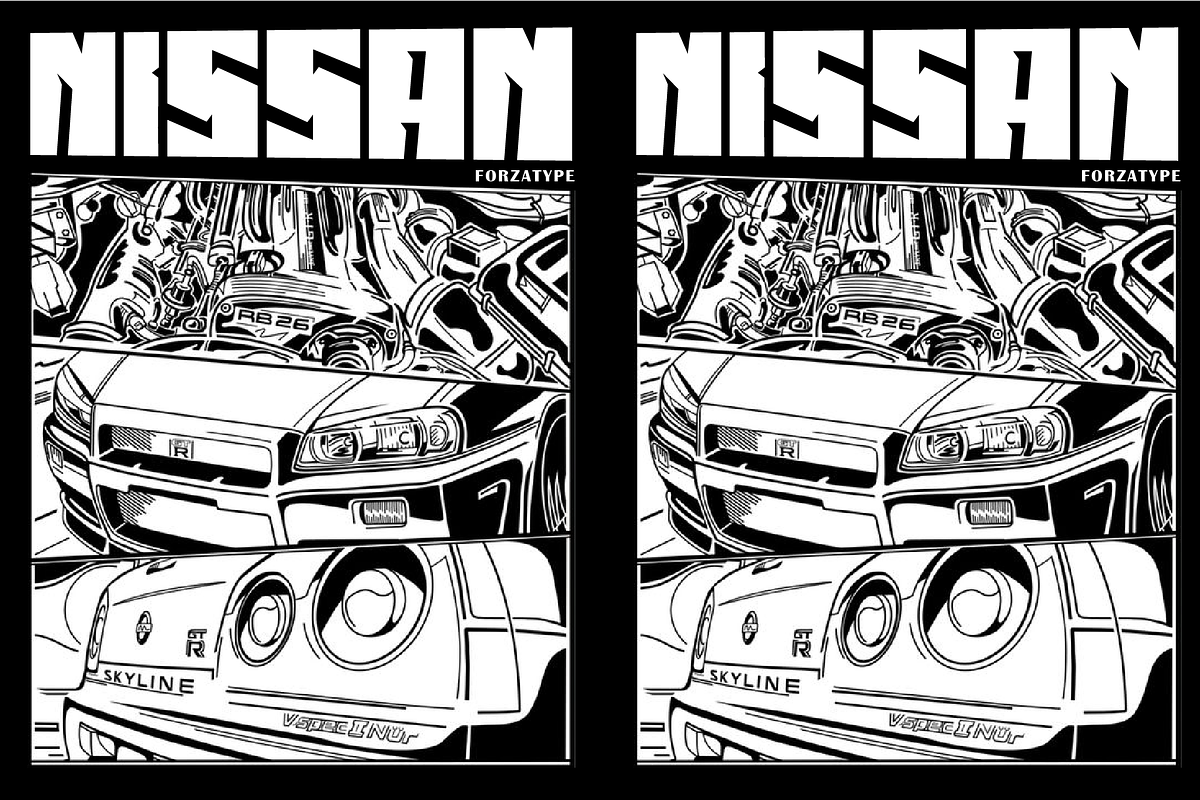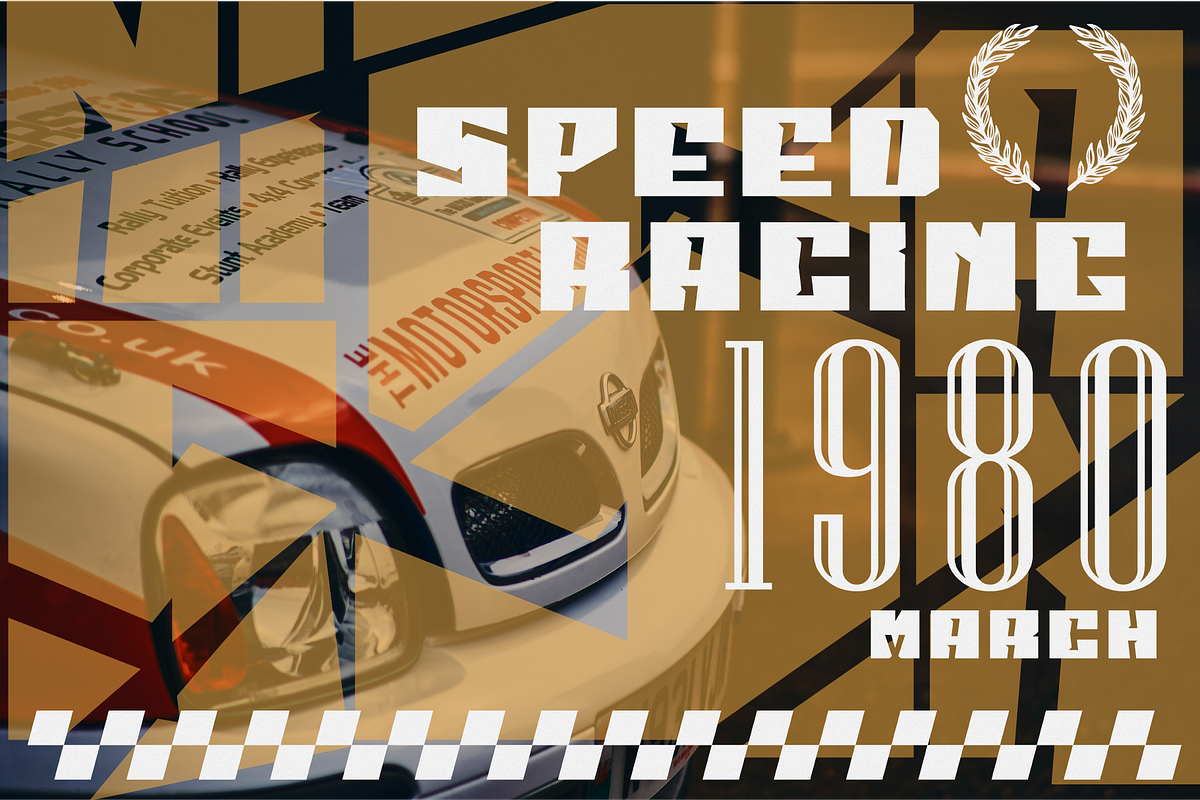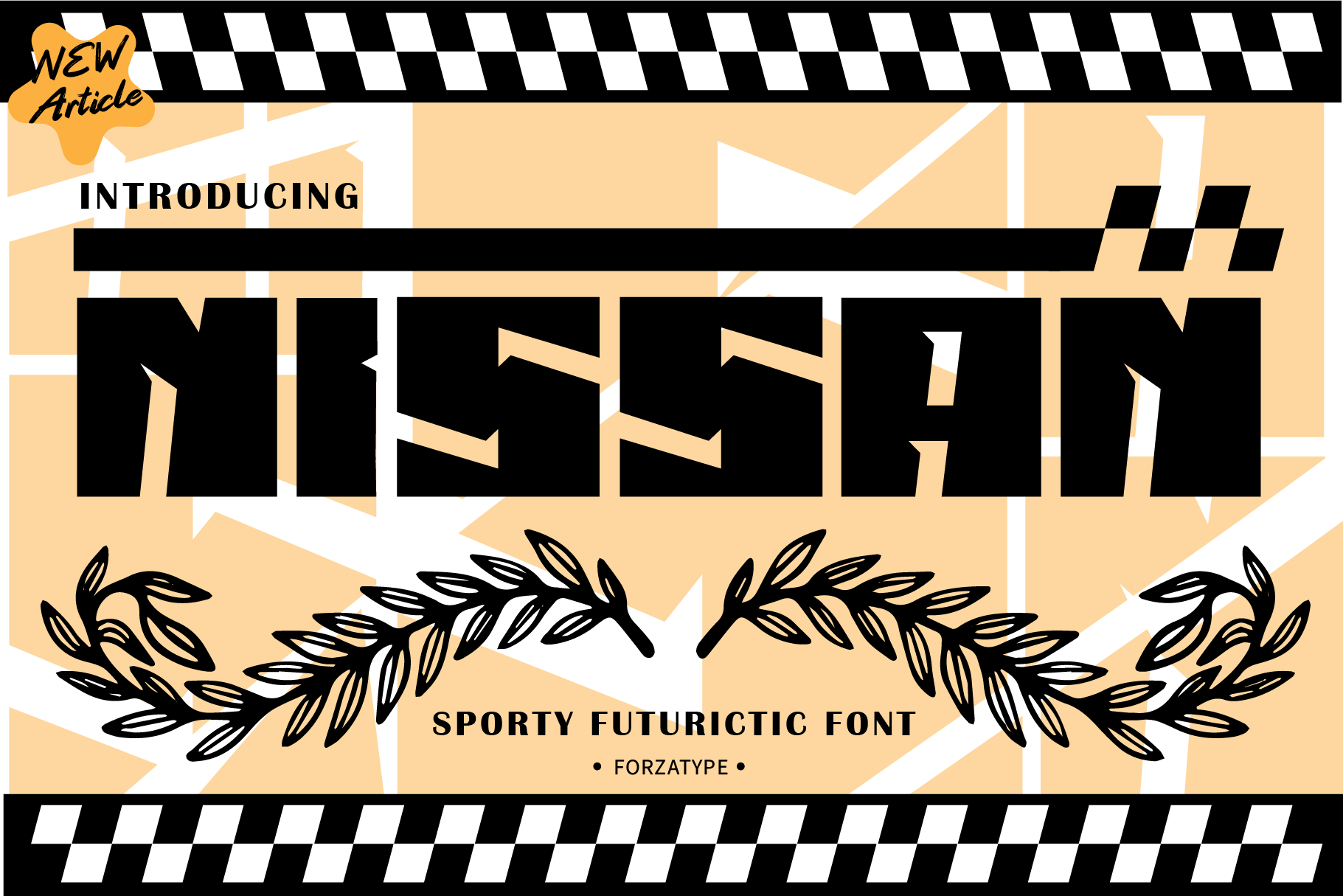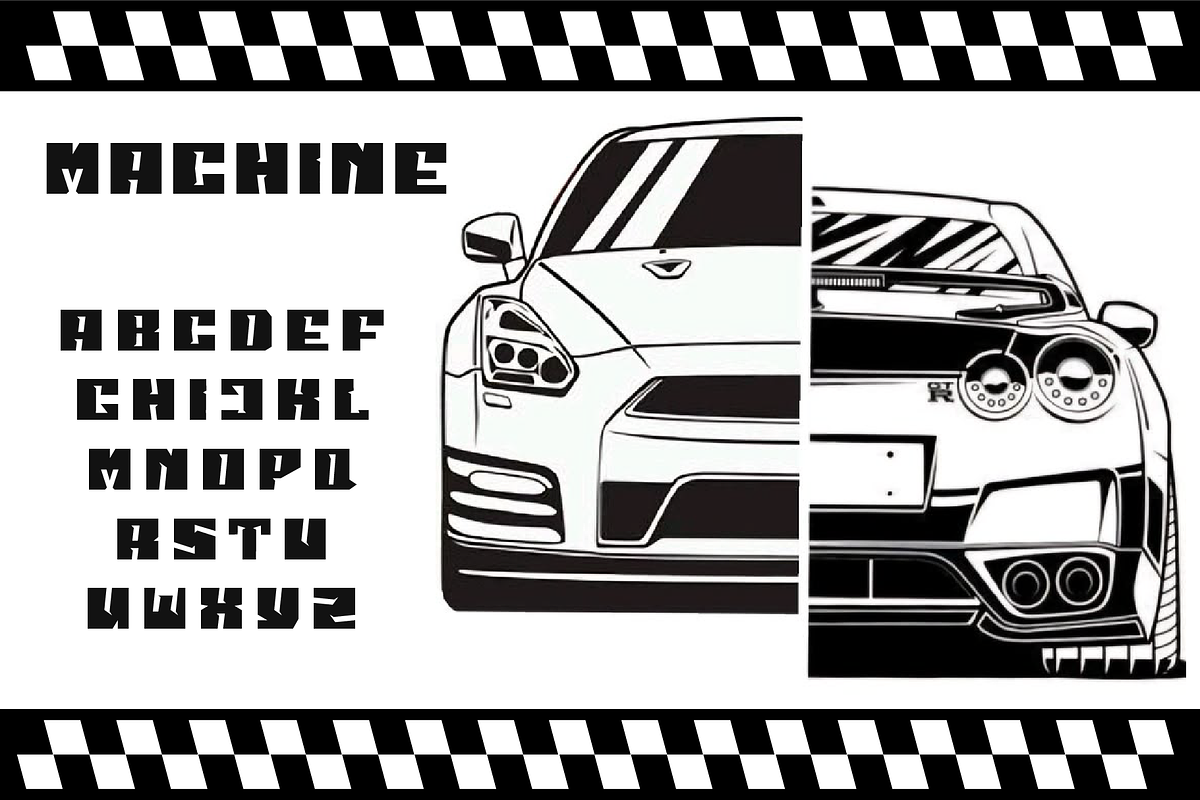
Saxophones Python FONT
The "Saxophones Python" font is a sporty and futuristic display typeface designed to evoke speed, precision, and dynamism. With its bold, angular letterforms and unique geometric cuts, this font is perfect for designs related to automotive, racing, technology, and modern branding.
Additional design elements such as the checkered racing pattern and elegant leaf accents create a balanced aesthetic—combining aggressiveness with visual appeal. This font is crafted by Forzatype, offering exclusive typography for various creative needs.